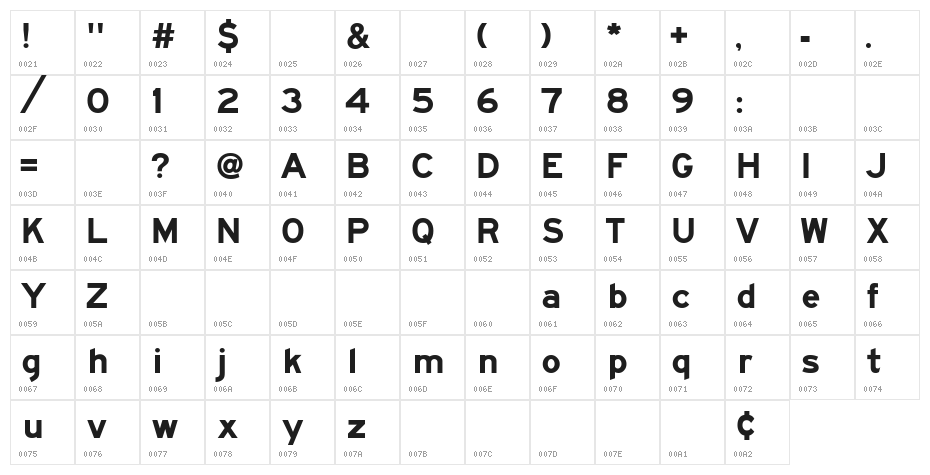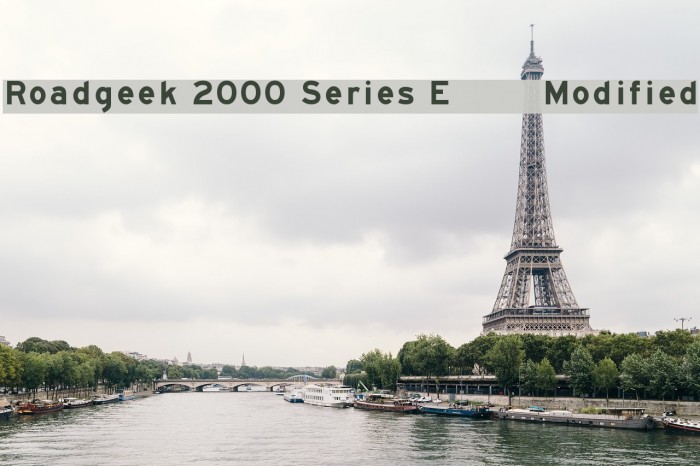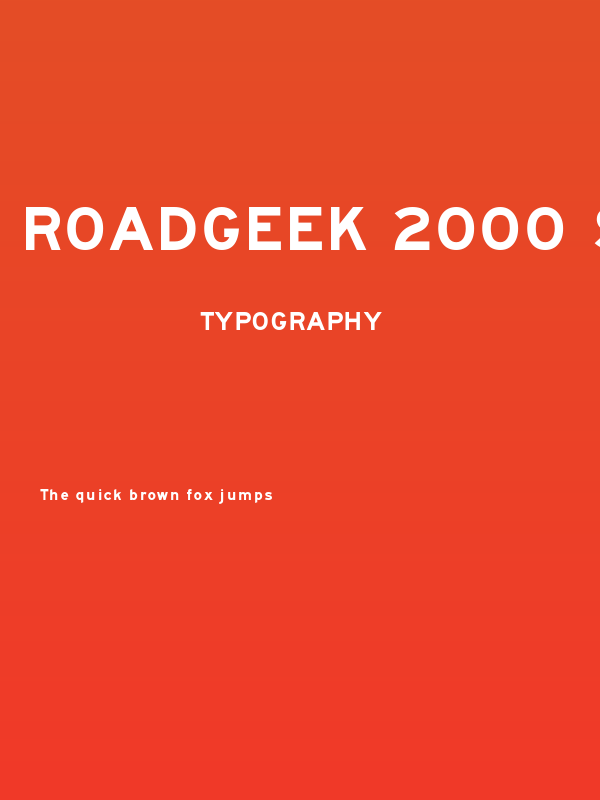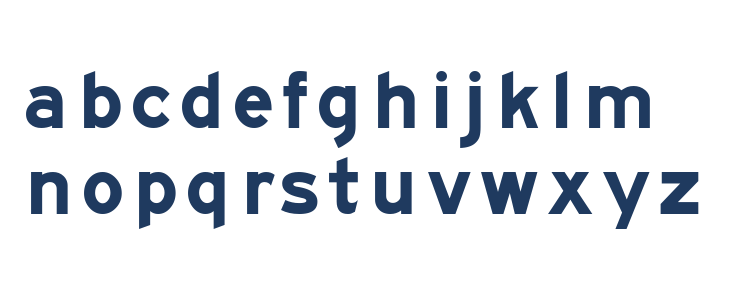
Roadgeek 2000 Series E [Modified] Font
Roadgeek 2000 Series E [Modified] Description
This font features a clean, bold sans-serif design with uniform stroke widths, making it highly legible and suitable for various applications. The characters are well-proportioned, with a modern aesthetic that emphasizes clarity and readability. The uppercase and lowercase letters maintain a consistent style, while the numerals and special characters are designed to complement the overall look. Its straightforward and functional appearance makes it ideal for signage and other contexts where clear communication is essential.
| Use Case | Headlines, Signage, Informational displays |
| Proposed Projects | Ideal for road signage, informational displays, and any project requiring high readability. |